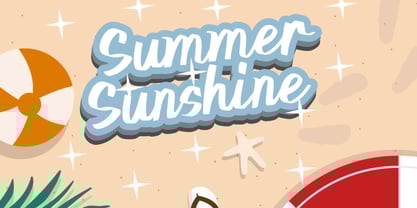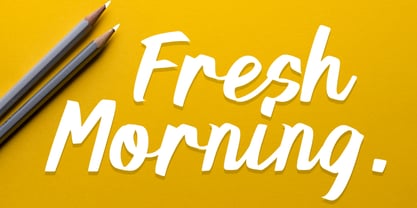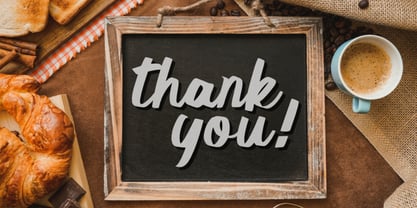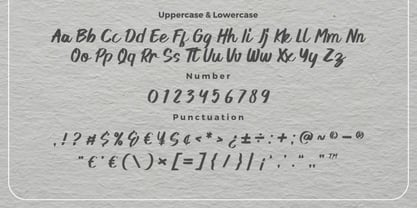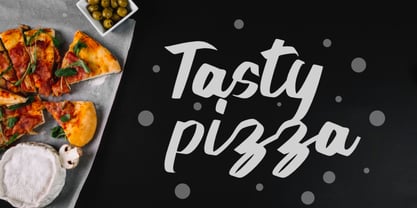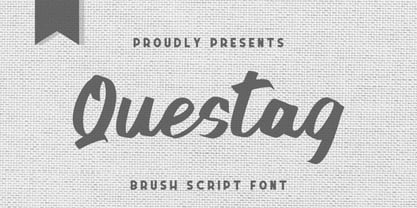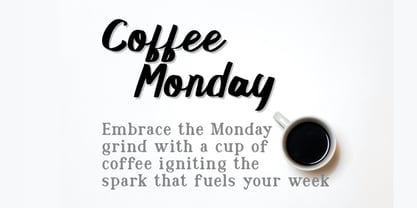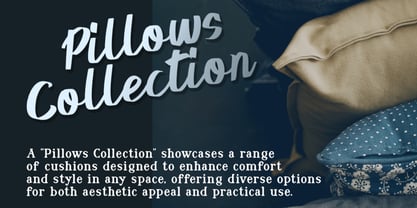
Questag
by Bayuktx
The Questag Font Family was designed by Bayu Aji Fais Mursid and published by Bayuktx. Questag contains 1 styles. More about this family
Questag Brush Script Font, This font is made with a high premium quality level which you can use as flyers, quotes, posters, banners, packaging, merchandise, logotypes and much more.
FEATURES :
* Uppercase
* Lowercase
* Number
* Punctuation
* Multilingual
Designers: Bayu Aji Fais Mursid
Foundry: Bayuktx